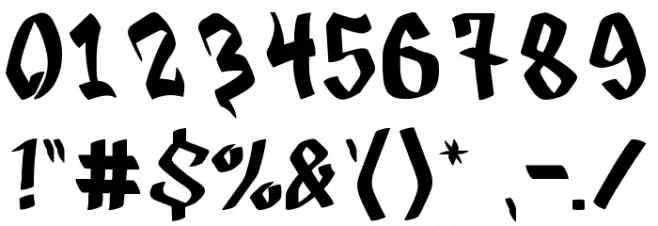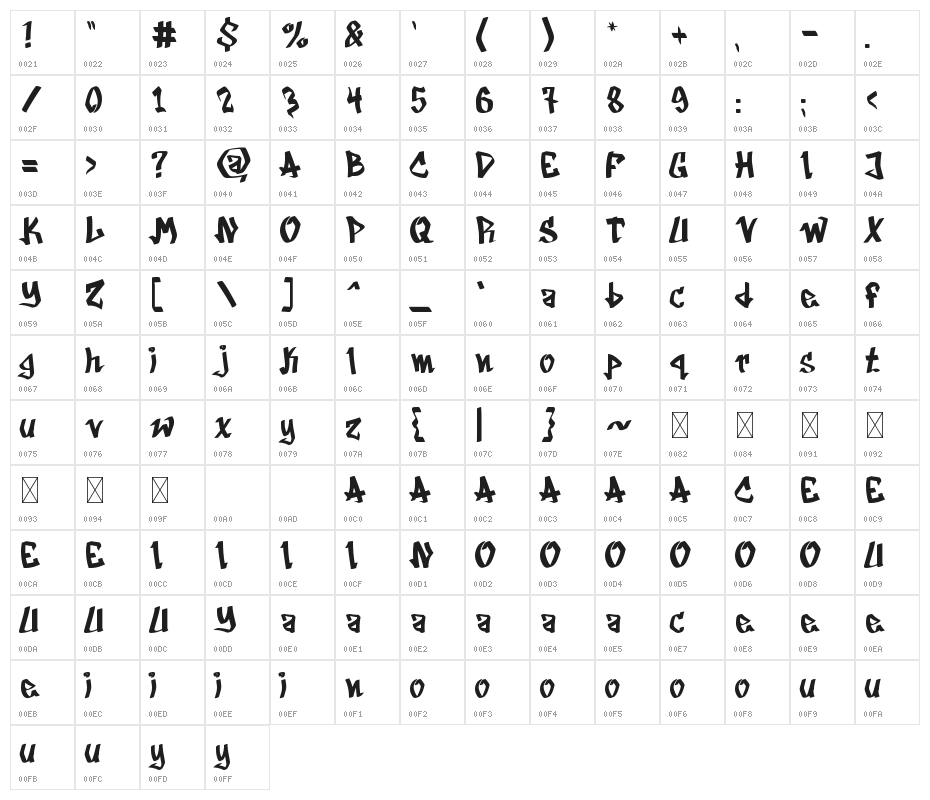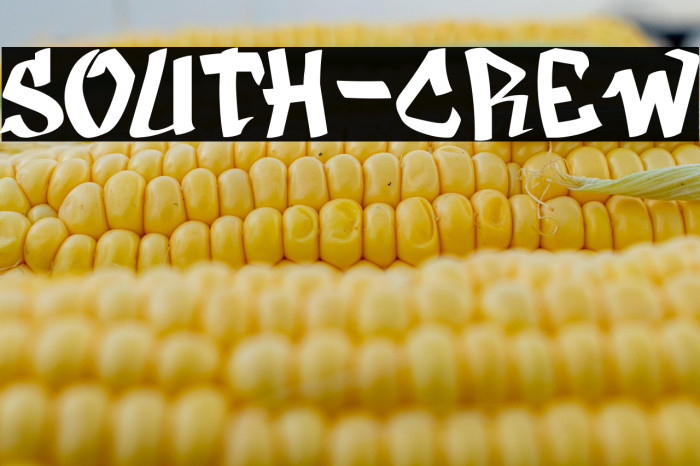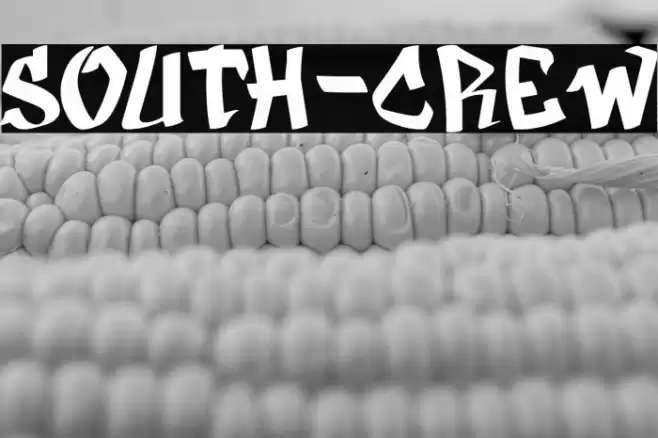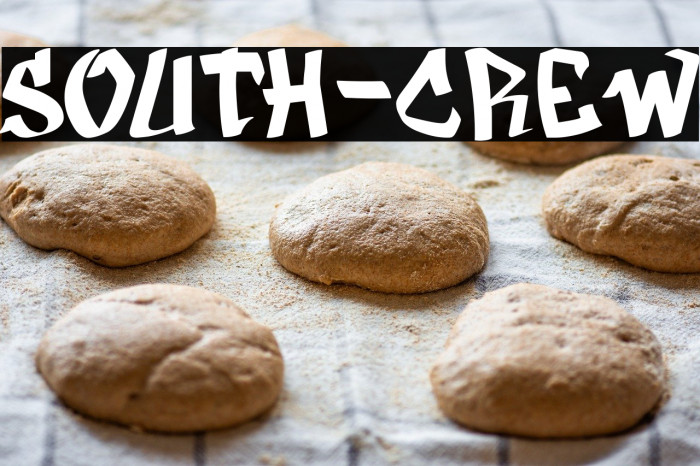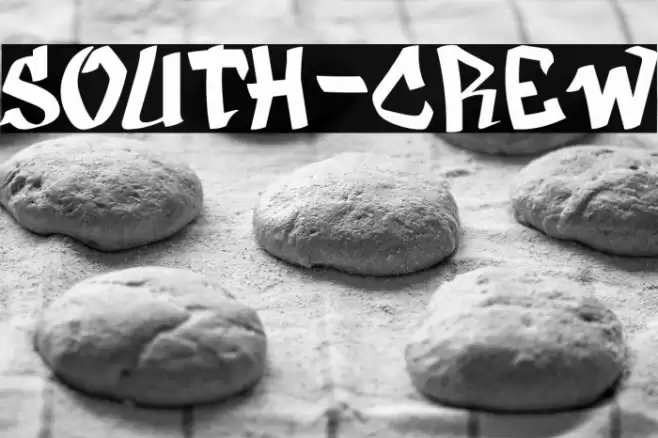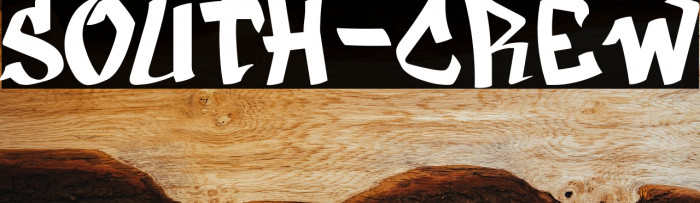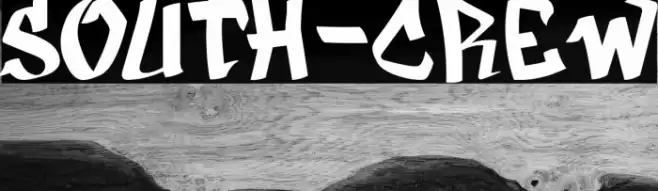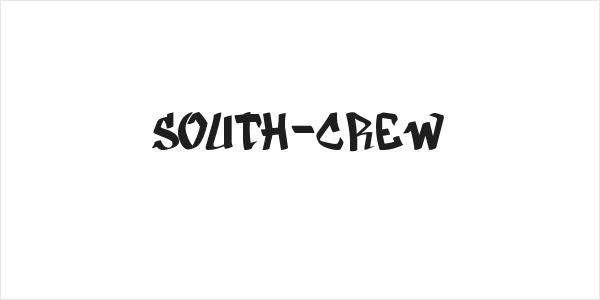
SOUTH-CREW Font
SOUTH-CREW Description
This font features a bold and dynamic style with sharp, angular edges and a graffiti-like appearance. The characters are highly stylized, with a sense of movement and energy that suggests a rebellious or urban aesthetic. The uppercase and lowercase letters maintain a consistent design theme, with exaggerated curves and pointed terminals. Numbers and special characters follow the same bold and expressive style, making the font suitable for eye-catching designs. The overall impression is one of strength and individuality, perfect for projects that require a standout, unconventional typeface.
| Overall Style | Urban, Rebellious, Dynamic |
| Proposed Projects | Ideal for street art designs, music album covers, urban-themed posters, and edgy branding projects. |